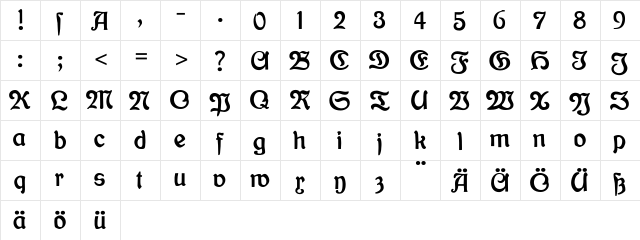
Bauernschrift Regular
Design Context for Bauernschrift Typeface
Bauernschrift takes a measured approach to typography — its balanced proportions and neutral character make it a reliable workhorse for both digital and print work.